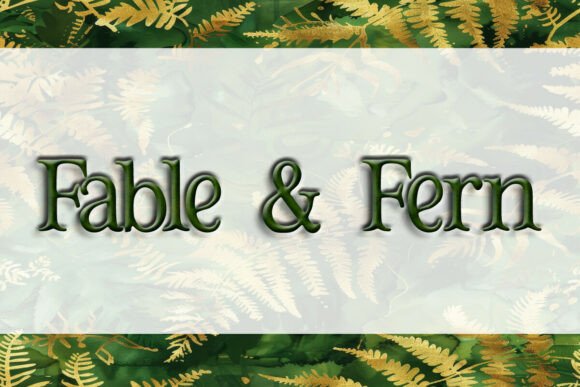
Discover the Whimsical Charm of Fable & Fern Font
Are you on the hunt for a font that can add a touch of magic to your designs? Look no further than Fable & Fern, a distinctive and versatile font that’s perfect for a wide range of creative projects. From shirts and stickers to branding, magazine layouts, and greeting cards, this font is sure to elevate your design aesthetics and leave a lasting impression.
A Font that’s Full of Character
Fable & Fern is more than just a font – it’s an experience. With its unique blend of whimsy and sophistication, this font is sure to transport your designs to a world of wonder and enchantment. Whether you’re a designer, crafter, or DIY enthusiast, Fable & Fern is the perfect choice for anyone looking to add a touch of personality to their work.
One of the best things about Fable & Fern is its incredible versatility. This font can be used for a wide range of projects, including:
- Shirts and apparel: Add a touch of whimsy to your t-shirt designs or create custom hoodies that stand out from the crowd.
- Stickers and labels: Create custom stickers and labels that are perfect for parties, gifts, or everyday use.
- Branding and advertising: Use Fable & Fern to create eye-catching logos, business cards, and marketing materials that reflect your brand’s personality.
- Magazine layouts and publishing: Add a touch of elegance to your magazine layouts, articles, and editorials.
- Greeting cards and invitations: Create beautiful, one-of-a-kind greeting cards and invitations that are sure to impress.
Seamless Integration with Social Media and Print Materials
In today’s digital age, it’s more important than ever to have a consistent visual brand identity across all platforms. Fable & Fern makes it easy to create stunning social media graphics, posters, and print materials that reflect your unique style. Whether you’re creating a Facebook post, Instagram story, or flyer, this font is sure to make your designs stand out.
Why Choose Fable & Fern Font?
So why choose Fable & Fern over other fonts on the market? Here are just a few reasons why designers and crafters love this font:
- Unique and distinctive: Fable & Fern is a one-of-a-kind font that’s sure to set your designs apart from the crowd.
- Versatile: This font can be used for a wide range of projects, from digital designs to print materials.
- Elegant and whimsical: Fable & Fern strikes the perfect balance between sophistication and playfulness.
Tips for Getting the Most Out of Fable & Fern
To get the most out of Fable & Fern, here are a few tips to keep in mind:
- Experiment with different sizes and colors: Fable & Fern looks great in a variety of sizes and colors, so don’t be afraid to get creative!
- Pair it with other fonts: Try pairing Fable & Fern with other fonts to create a unique and eye-catching design.
- Use it consistently: To create a cohesive brand identity, use Fable & Fern consistently across all your designs and platforms.
In conclusion, Fable & Fern is a font that’s sure to captivate and inspire designers and crafters alike. With its unique blend of whimsy and sophistication, this font is perfect for anyone looking to add a touch of magic to their designs. Whether you’re working on a shirt, sticker, or social media graphic, Fable & Fern is the perfect choice for anyone looking to elevate their design aesthetics and stand out from the crowd.